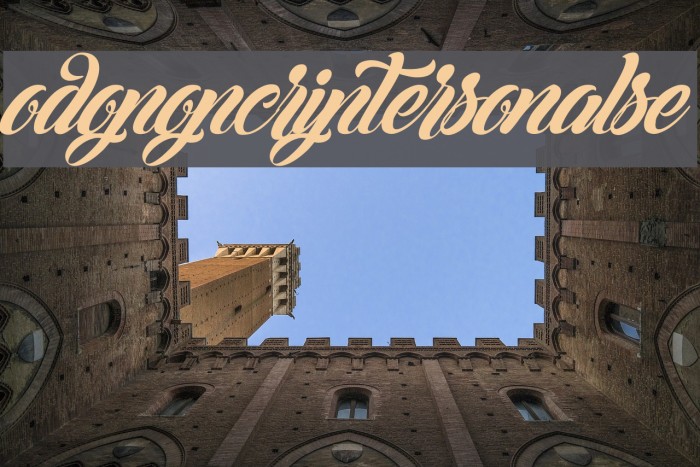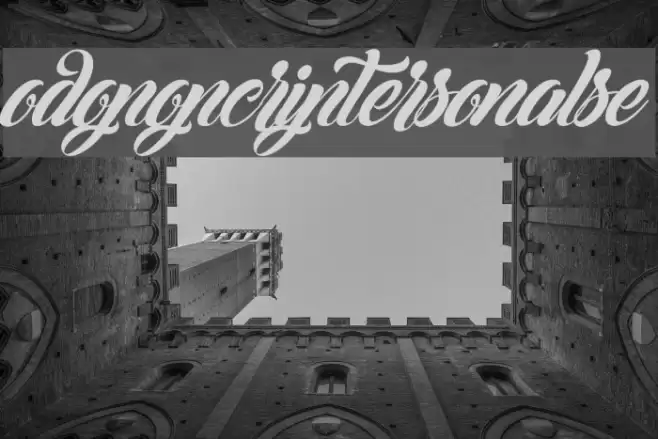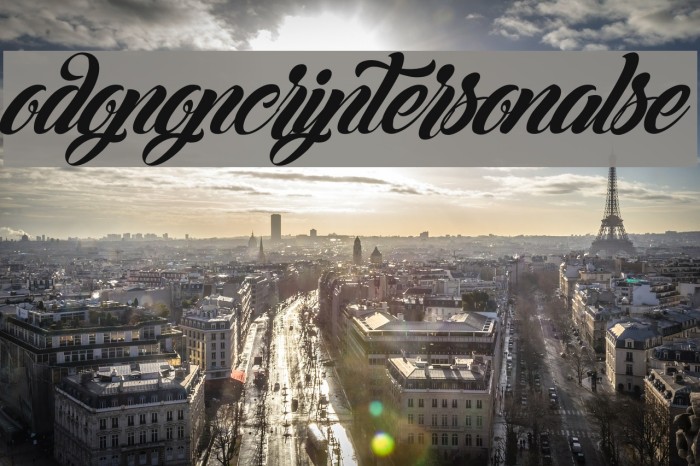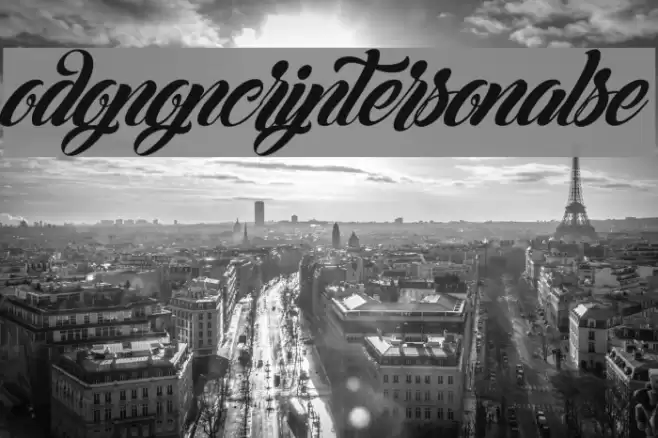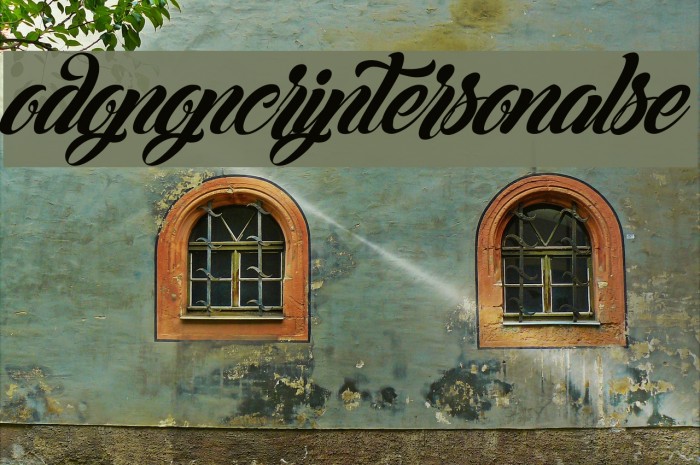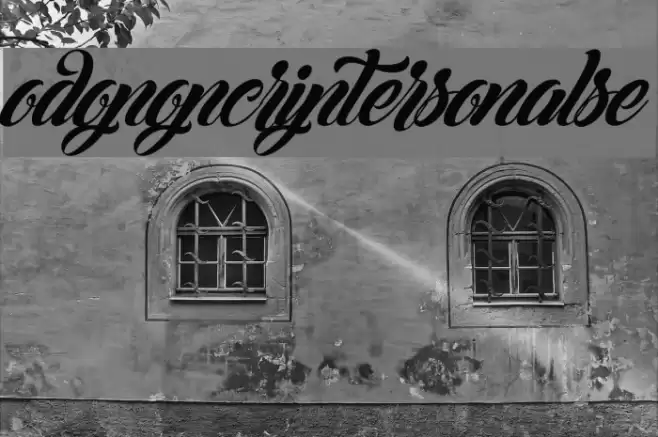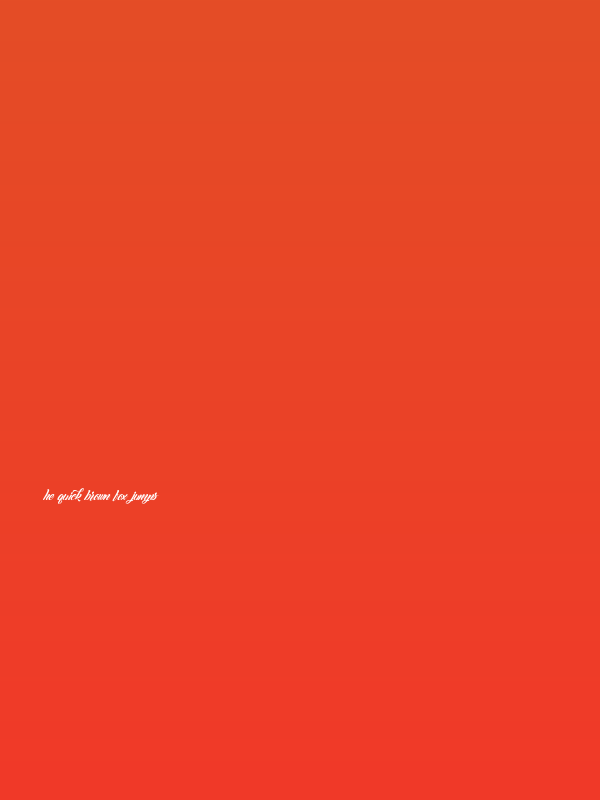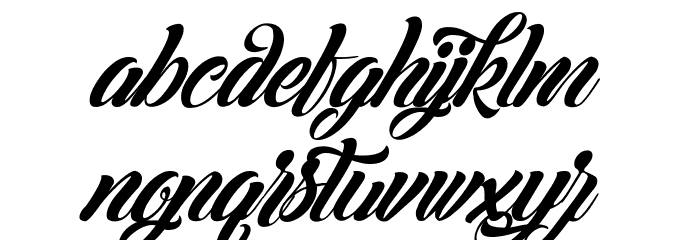
Dodopop-ScriptPersonalUse Font
Dodopop-ScriptPersonalUse Description
This font exhibits a bold and flowing script style, characterized by its elegant and cursive letterforms. The strokes are smooth and connected, creating a sense of fluidity and grace. The letters have a slight slant, enhancing the script's dynamic appearance. The overall design is ornate, with some letters featuring decorative swashes and loops, adding to its artistic flair. The font maintains a consistent weight throughout, ensuring readability while retaining its decorative nature. It is well-suited for projects that require a touch of sophistication and elegance.
| Proposed Projects | Ideal for wedding invitations, greeting cards, branding projects, and elegant logo designs. |